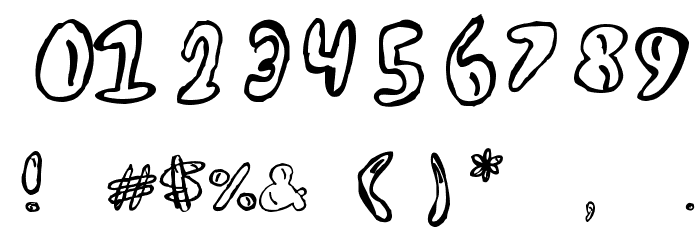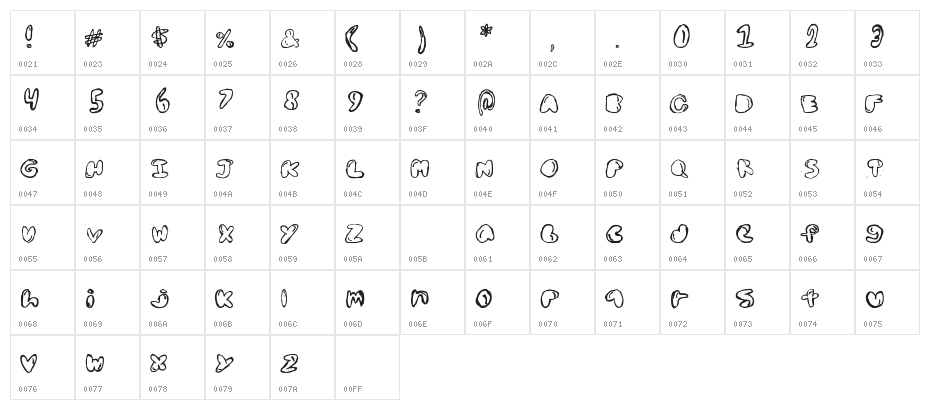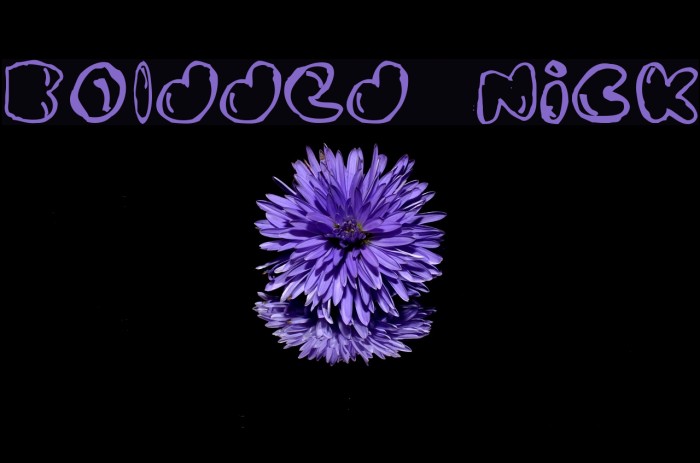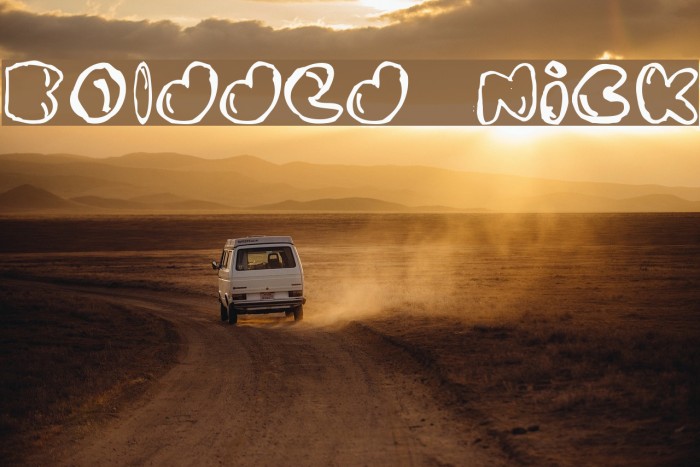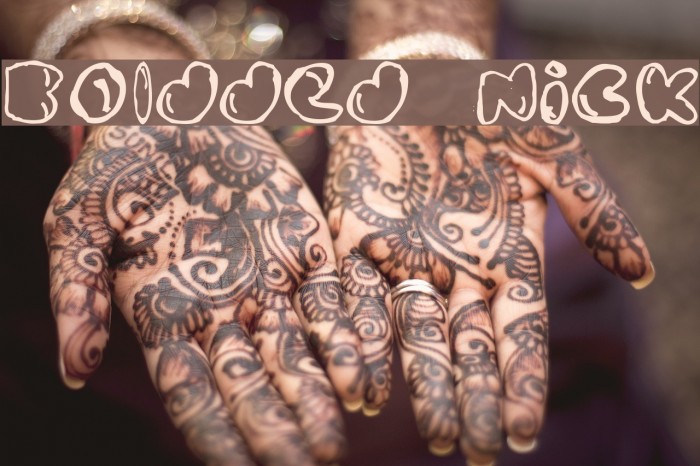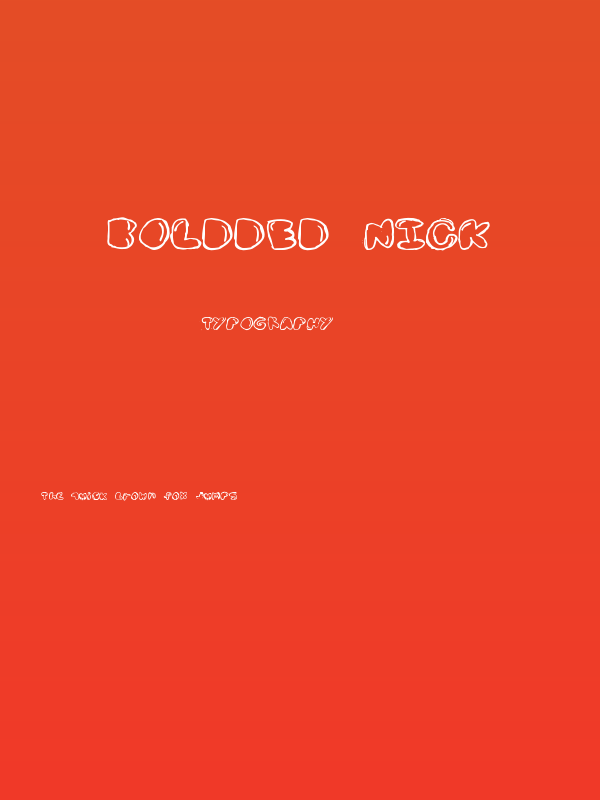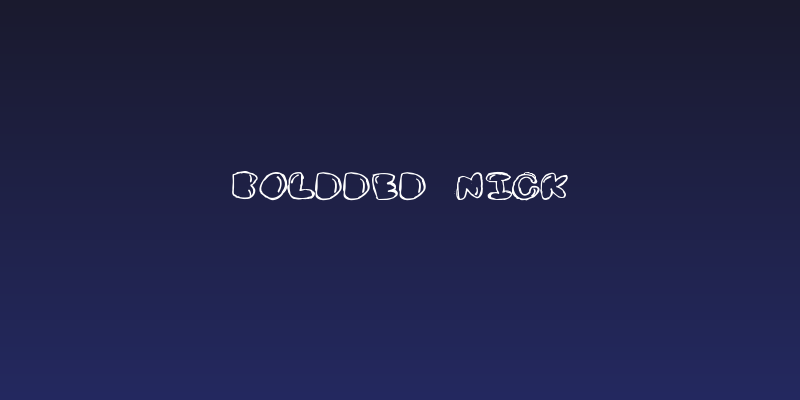
Boldded Nick Font
Boldded Nick Description
This font features a playful and bold design with an irregular, hand-drawn appearance. Each character is outlined with a thick, uneven stroke, giving it a whimsical and artistic feel. The letters are slightly distorted, adding to the casual and informal style. The numbers and special characters follow the same quirky design, making the font suitable for creative and fun projects. Its unique style is eye-catching and can add a touch of personality to any design.
| Overall Style | Playful, Artistic |
| Proposed Projects | Ideal for children's books, comic strips, playful branding, and creative posters. |